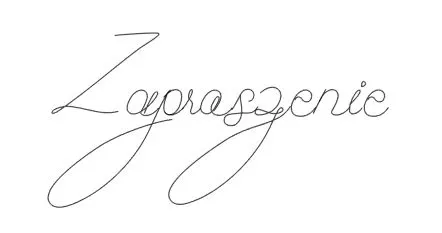
Single-line fonts – how to find them and what can they be useful for?
If you are interested in gilding and sketching decorative inscriptions, in this article you will learn which fonts are best for these tasks. I will also tell you where to get them and share my favorites.
When creating our own projects, we face many choices, starting from the type of material we will work with, through colors, and ending with details. They often make our works shine, attract attention and give an original effect, so it is worth ensuring their consistency with the rest of the design, as well as patterns appropriate to the accessories we use. To create unique ornaments, background elements or inscriptions, we can use, for example, markers or gilding tools. To achieve aesthetic effects, appropriate patterns and fonts should be selected.
Single-line fonts – what are they?
In the case of most standard fonts, after sending them for cutting or sketching, we obtain an outline of individual letters, because cutting plotters recognize them as figures and perform the task along the lines and points defining their outline. In this way, we obtain empty characters, which we can optionally fill with color or gilding, if the program we use allows it. For example, Silhouette Studio has this function (filling with a sketch). To achieve a more delicate and aesthetic effect, it is worth using single-line fonts. As the name suggests, these are fonts in which individual letters consist of a single line. Thanks to this, the plotter reads a straight path during operation. Thanks to this, we obtain delicate inscriptions that do not require filling out.
Sample single-line fonts
Infirmly Indicator Single Line – an elegant and delicate font perfect for creating invitations or thank you notes
Early Youth Single Line Regular – a great font for less formal projects
Bedriyas – elegant and unique at the same time, making them eye-catching
These are just my suggestions, but there are many possibilities, from fonts consisting of decorative swirls to simple and legible ones. Everyone will find something interesting that suits their tastes and needs resulting from the nature of a given project. All that remains is to create the design and then gild or sketch the prepared inscriptions to enjoy the great effect!